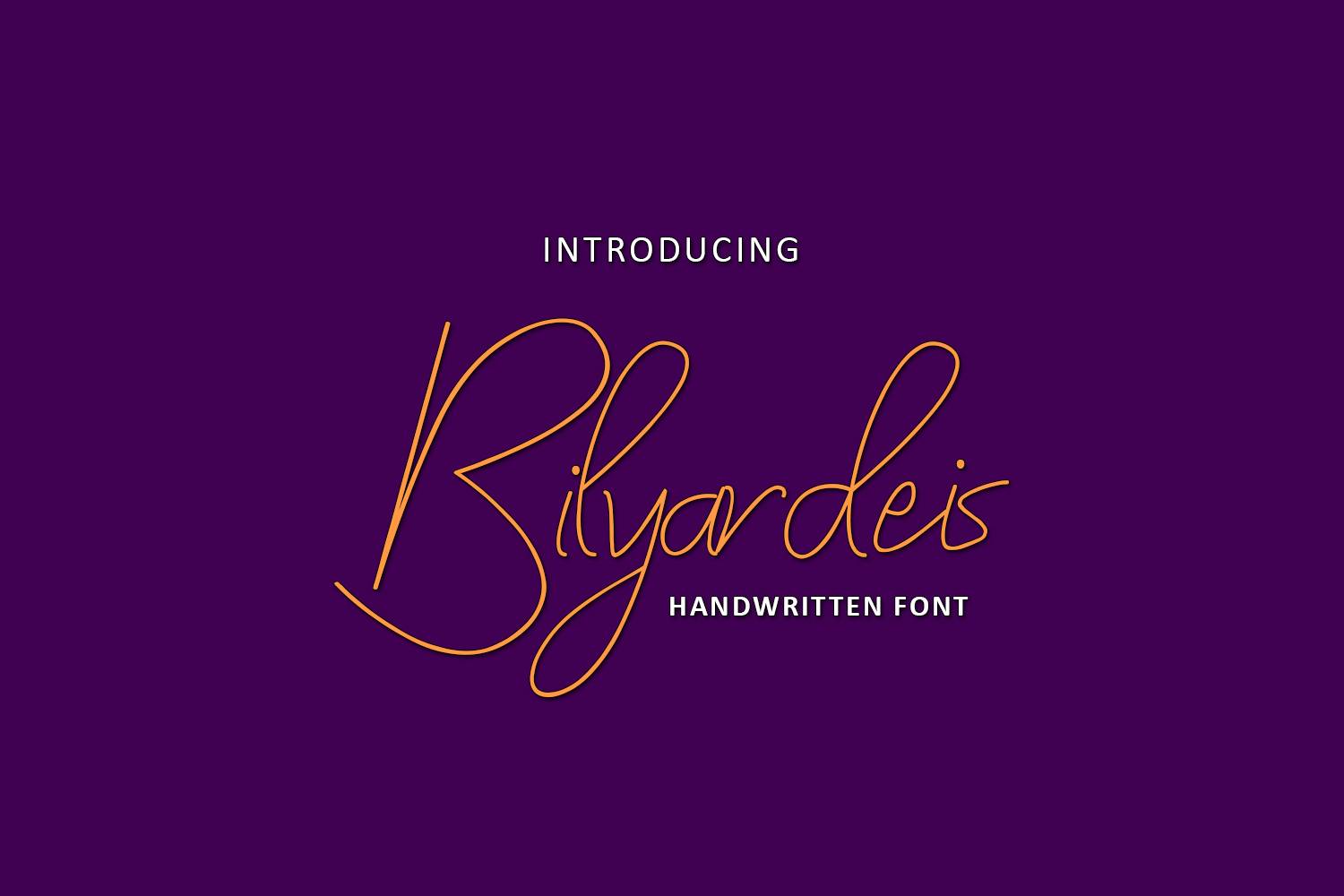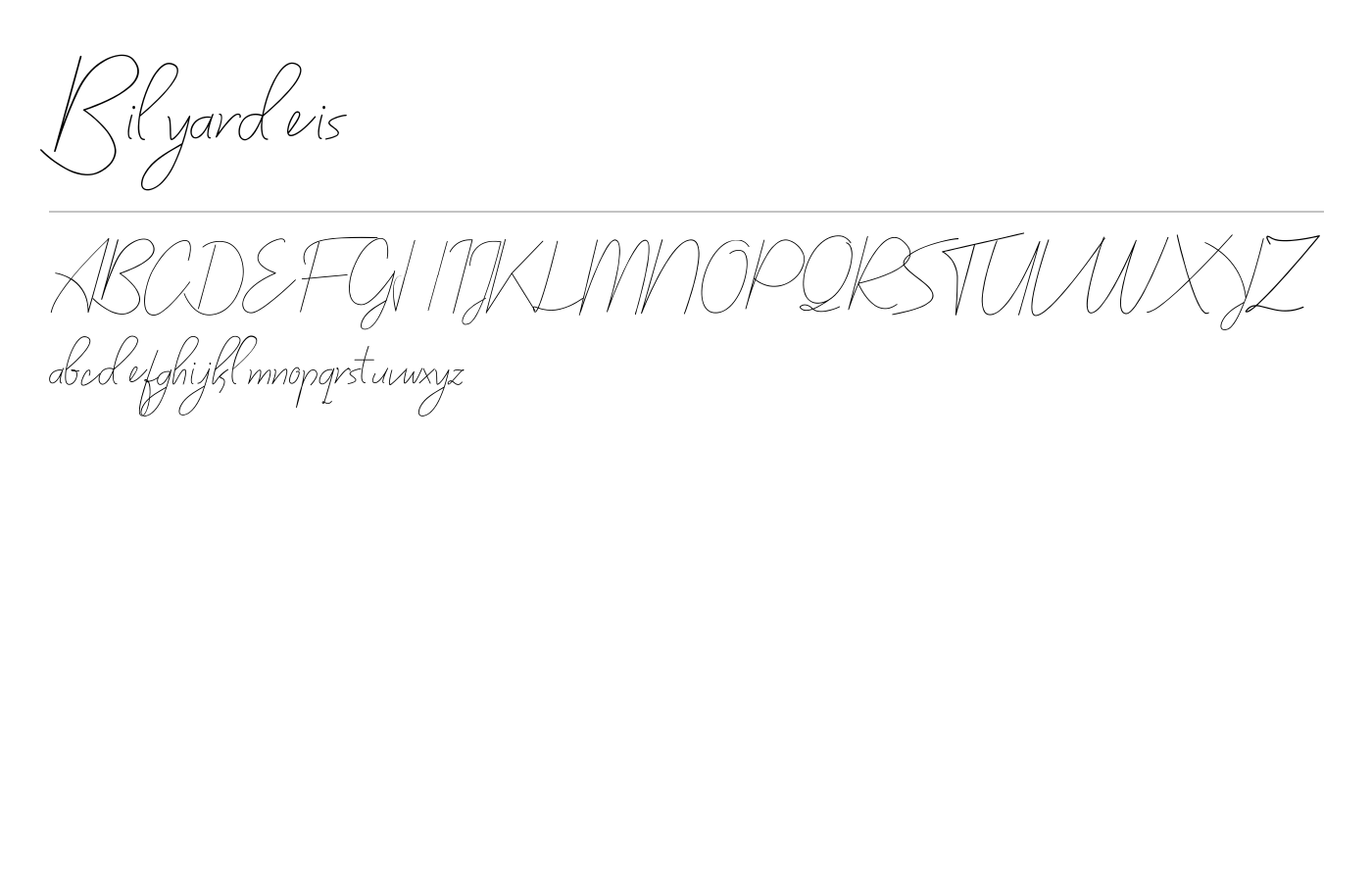
Bilyardeis is an elegant, delicate script font featuring thin, flowing lines that create a graceful and airy feel. Its tall, slender letterforms with subtle flourishes give it a refined, handwritten look perfect for sophisticated branding, invitations, or artistic projects where a light, personal touch is desired. This font works best in contexts that call for elegance and creativity, adding a stylish, modern flair without overwhelming the design.
Bilyardeis Font
About Bilyardeis Font